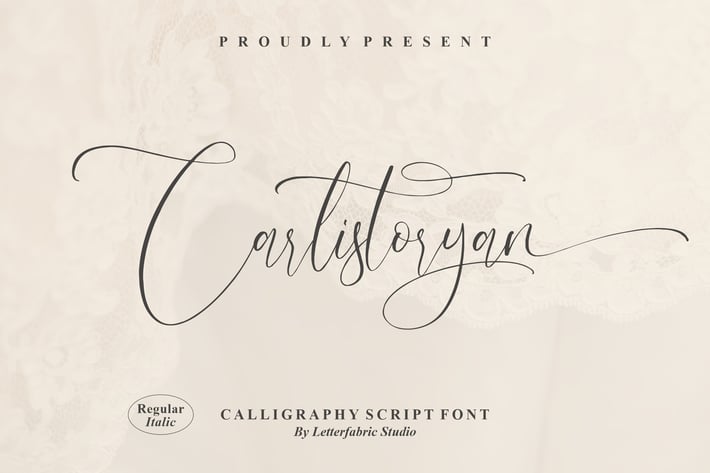
Carlistoryan Calligraphy Script Font
Carlistoryan Calligraphy is a refined script font with elegant long swashes and a soft handwritten flow. Its graceful curves and romantic styling make it an ideal choice for wedding stationery, feminine branding, and any design that needs a delicate, luxurious touch.
Elegant calligraphy script with extended decorative swashes
Smooth, refined letterforms perfect for names and headlines
Romantic handwritten aesthetic with a premium feel
Great for both high-quality print and digital designs
Wedding invitations & bridal branding
Romantic quotes & greeting cards
Beauty, fashion, and lifestyle branding
Social media posts & elegant moodboards
Editorial titles, posters, and packaging
Event materials & boutique identity design
Delicate calligraphy crafted for romantic, high-end design.